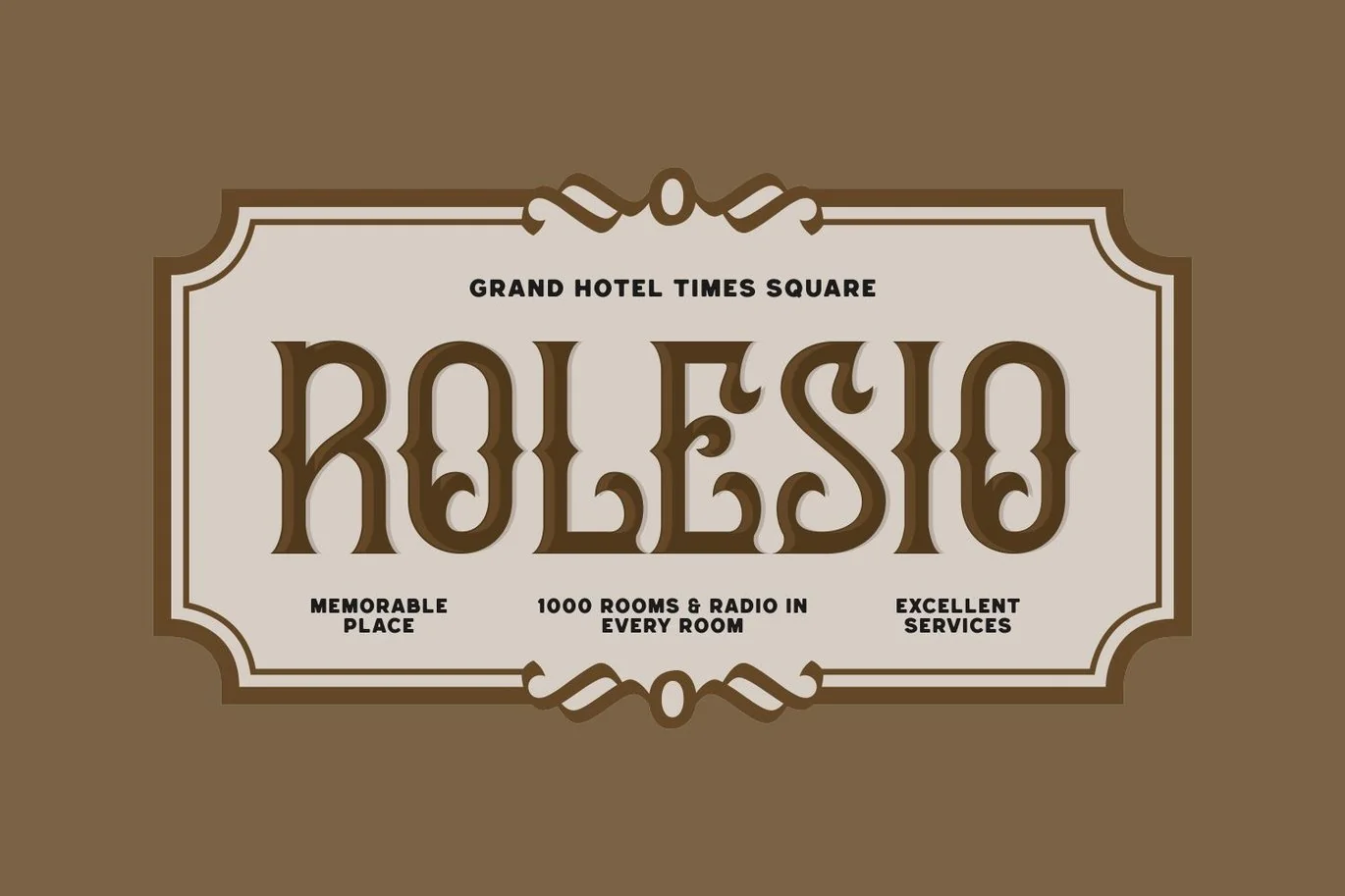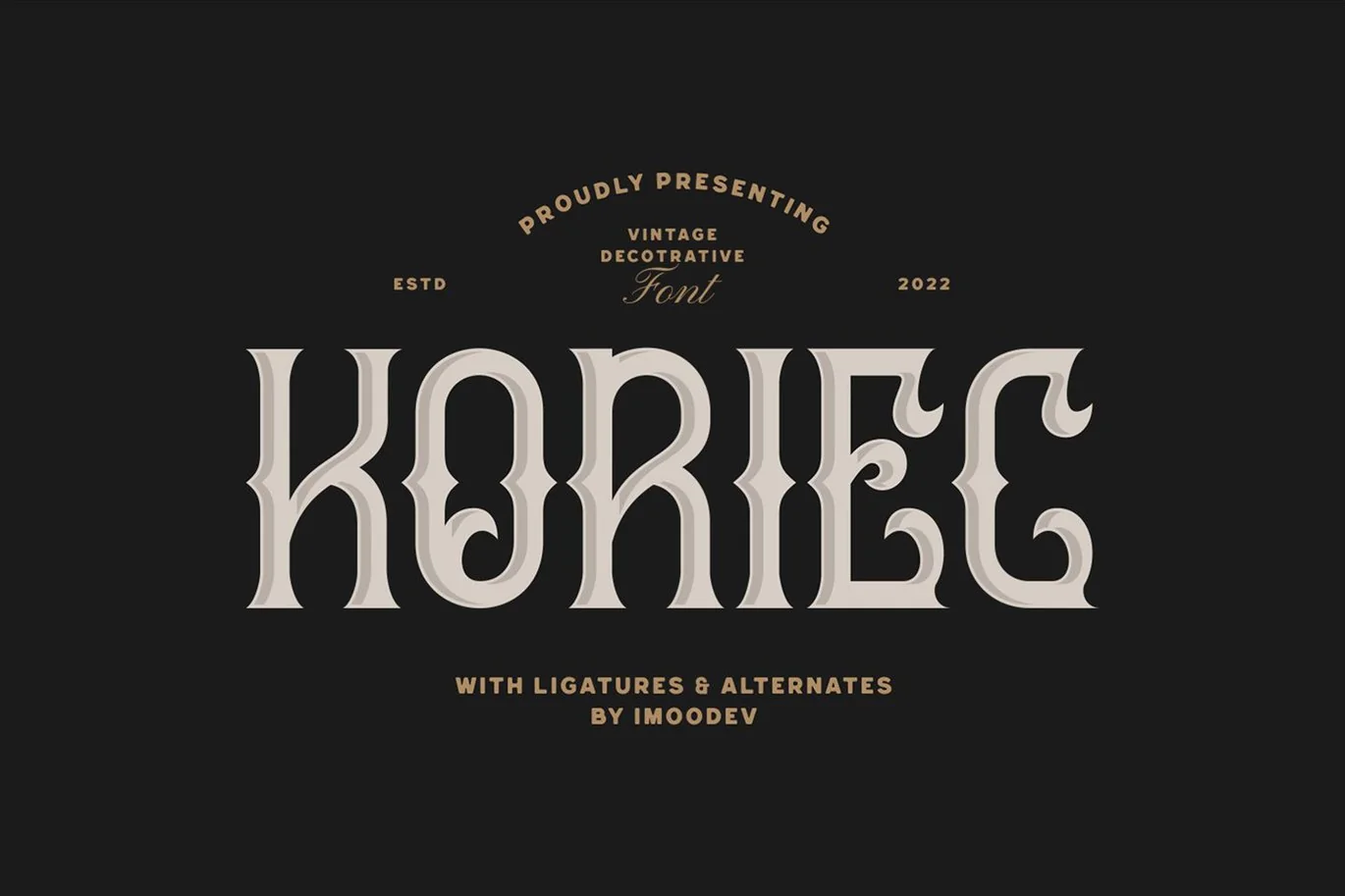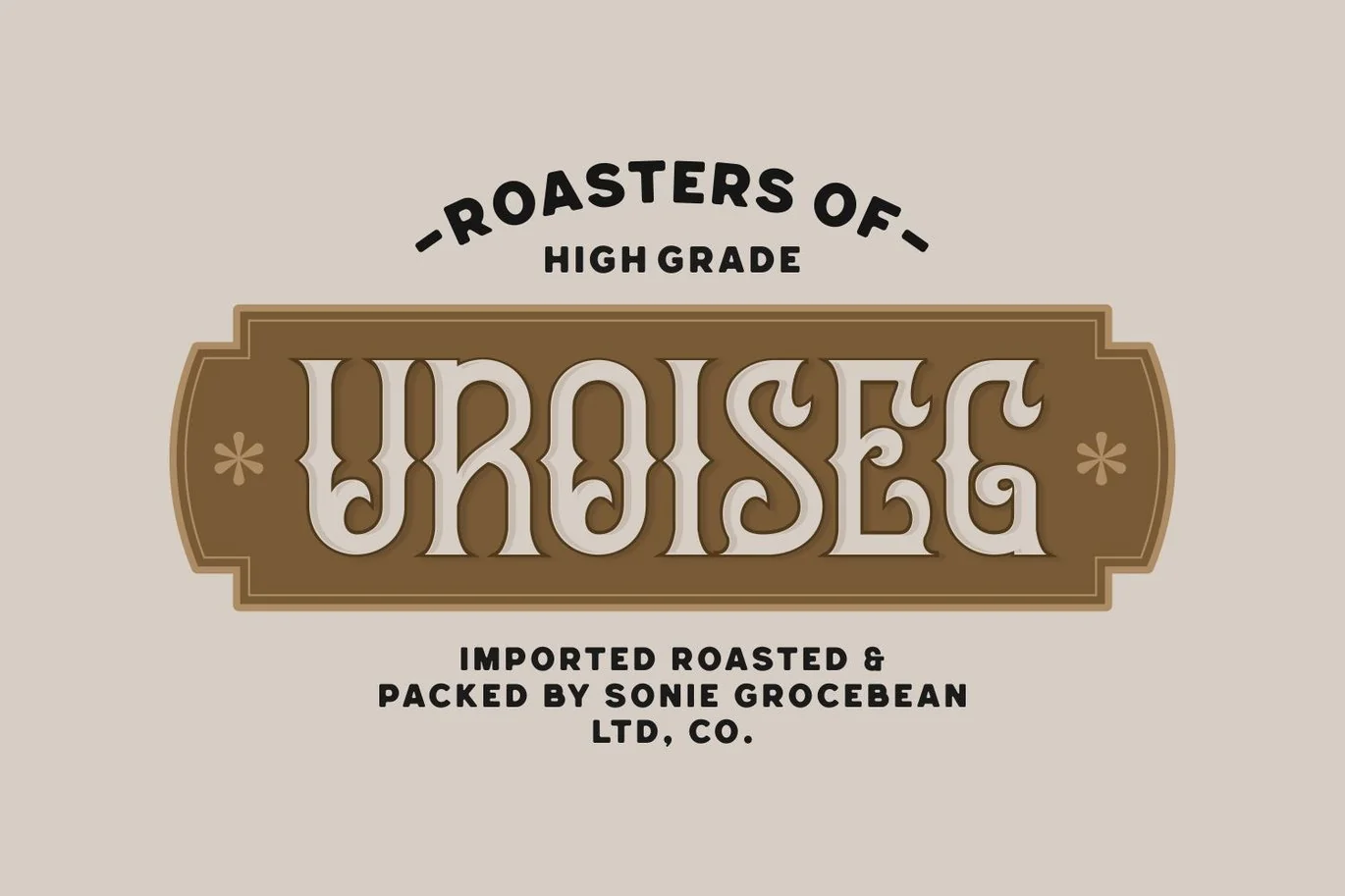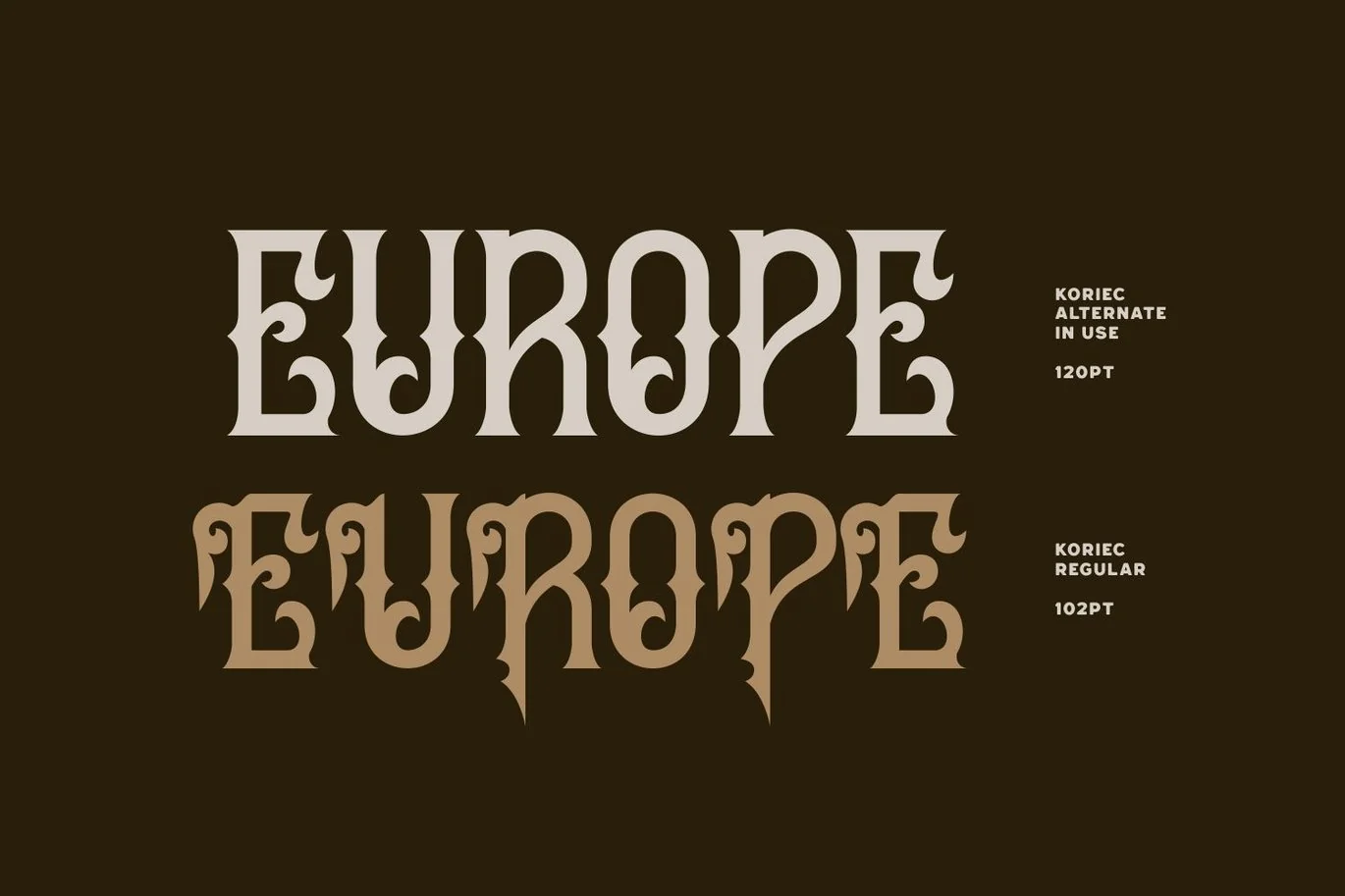
Koriec – Modern Blackletter Font
Koriec is modern blackletter font with visual elegance, smooth curves, and beautiful ligatures clear, making your work look true and attractive.
A versatile font that works in both large and small sizes. This font is suitable for a wide variety of projects such as invitations, logos, branding, magazine, photography, card, product packaging, mugs, quotes, poster, labels, signatures, and more.